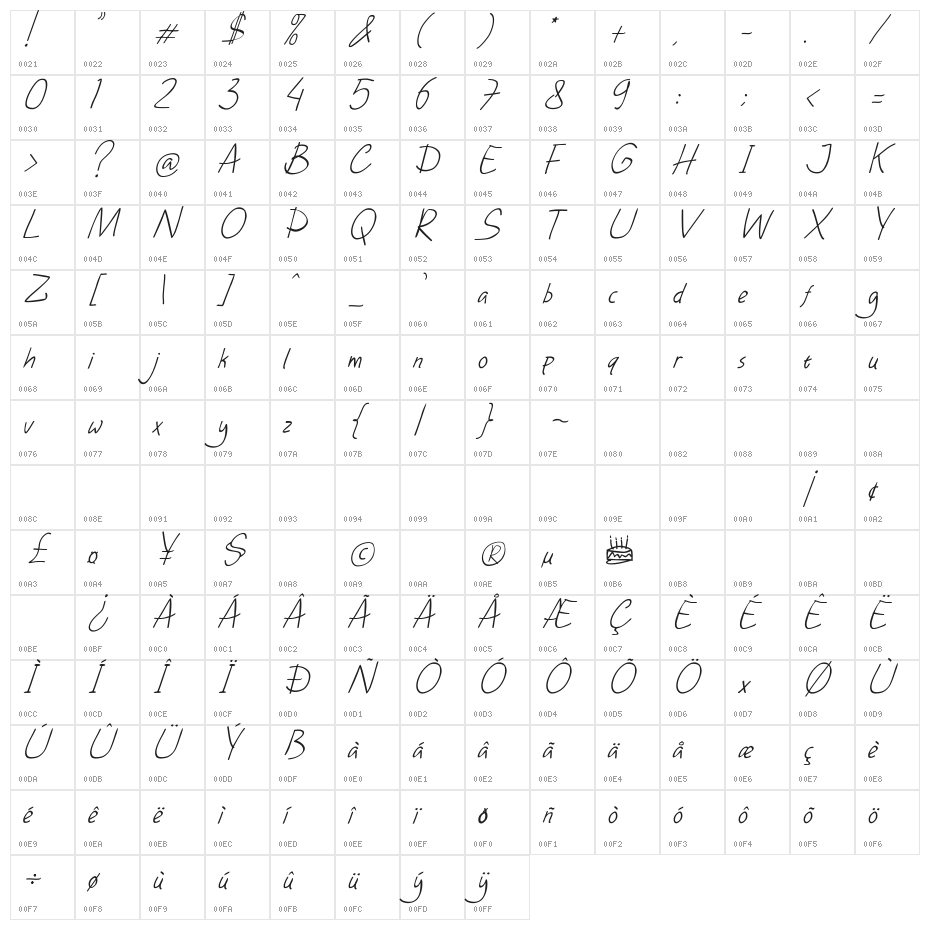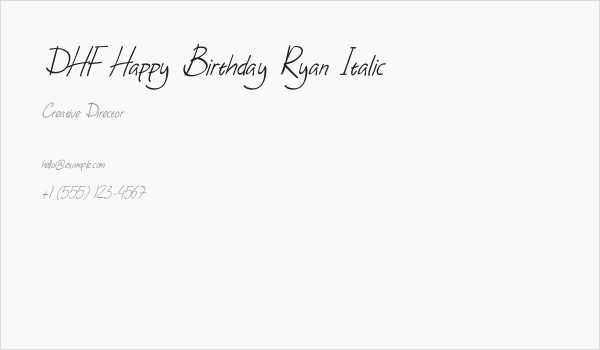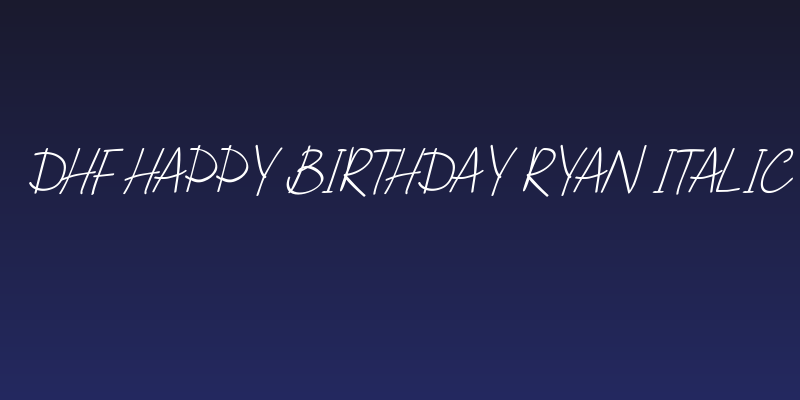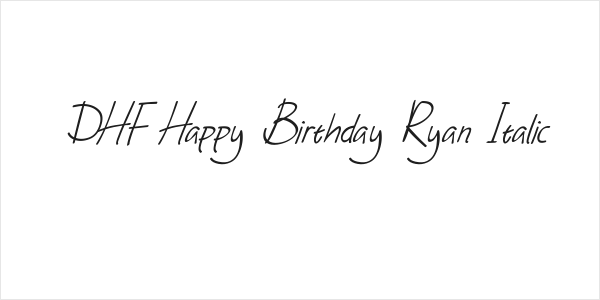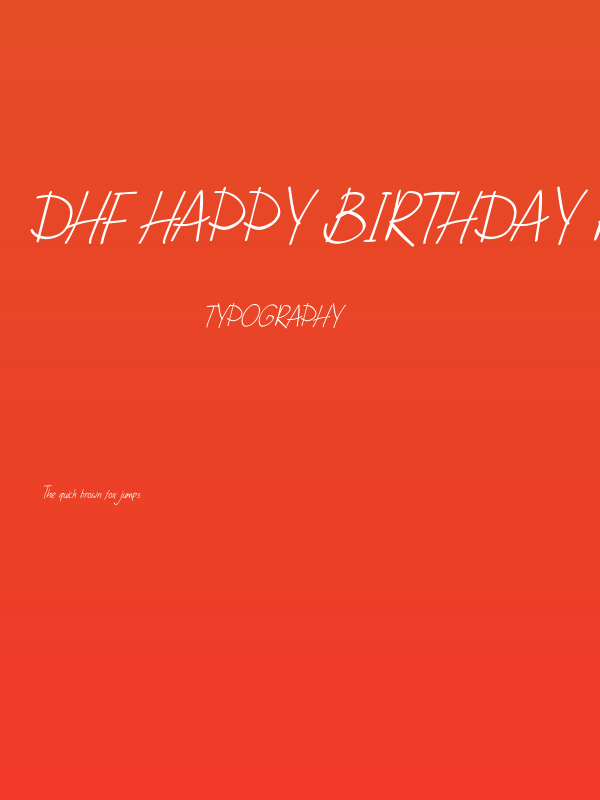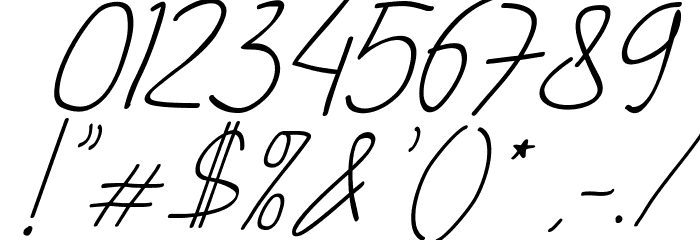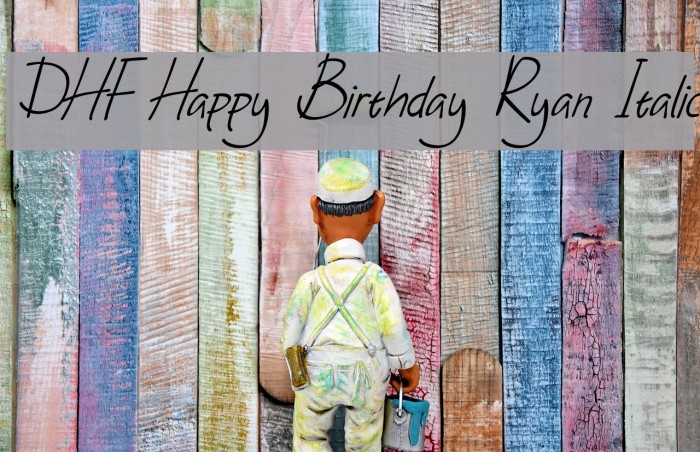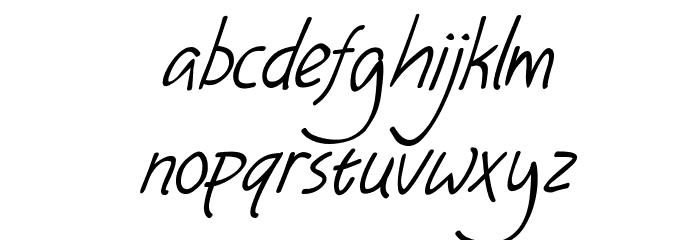
DHF Happy Birthday Ryan Italic Font
DHF Happy Birthday Ryan Italic Description
This font exudes a playful and casual handwritten style, characterized by its smooth, flowing lines and slightly slanted orientation. The uppercase and lowercase letters maintain a consistent rhythm, with a natural, organic feel that mimics the fluidity of cursive handwriting. The numerals and special characters are crafted with the same attention to detail, ensuring a cohesive look across all elements. The strokes are moderately thick, providing a balanced contrast that enhances readability while retaining the font's whimsical charm. This font is ideal for projects that require a personal touch, such as greeting cards, invitations, and playful branding materials.
| Use Case | Greeting cards, Invitations, Playful branding |
| Proposed Projects | Ideal for greeting cards, invitations, playful branding, and personal projects. |